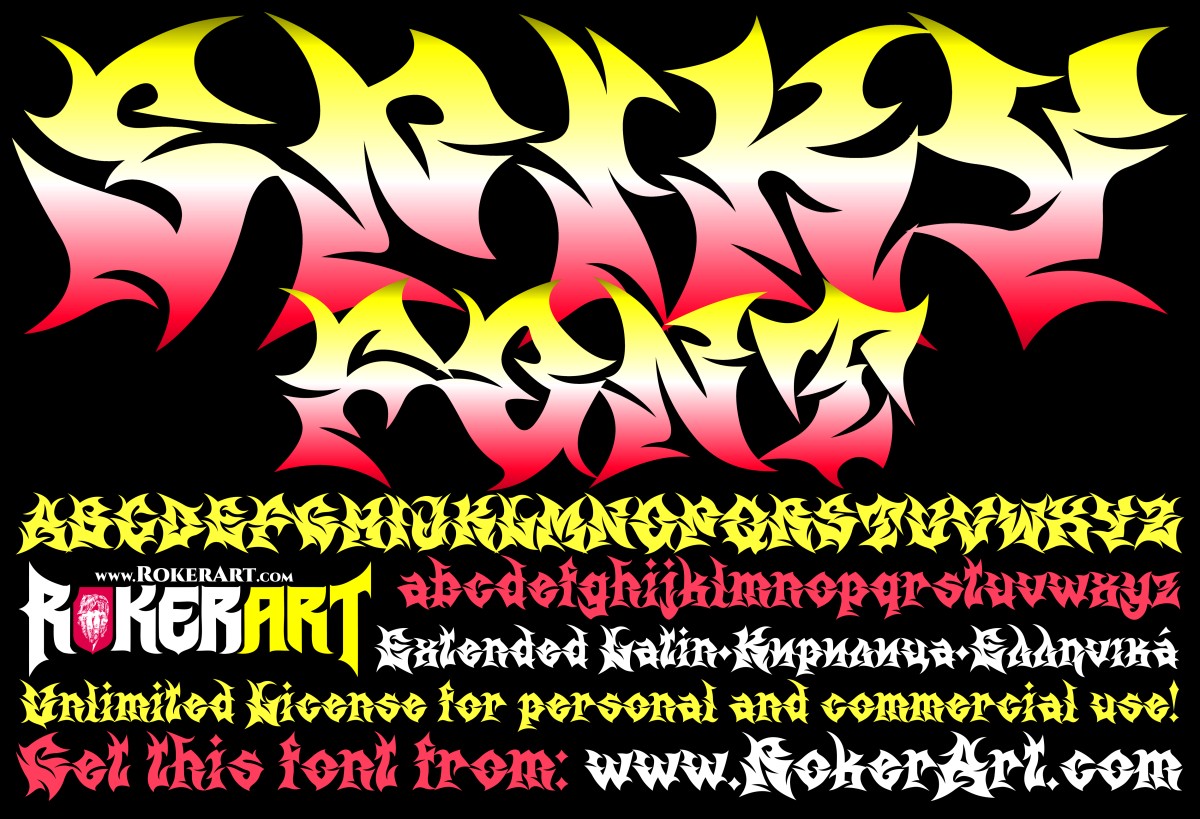
This is a font that combines graffiti, tattoo, tribal, metal, and gothic looks. Perfectly balanced, detailed, optimized, and easy to work with, this font will serve you well both for creating your own logo or inscription and for projects related to full text. It contains all the necessary letters, numbers, and symbols from extended Latin, Greek, and Cyrillic. It is perfect for your merchandise, video content, and visual impact! Suitable for designers looking for a unique and organic look and quality printed and online materials.